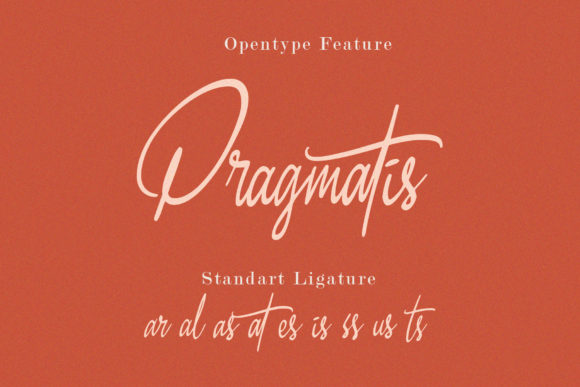
**Introducing Dragmatis: The Script Font That Will Elevate Your Designs to New Heights**
In a world of digital monotony, Dragmatis emerges as a beacon of creativity, an exquisite script font that breathes life into your designs, captivating your audience with its timeless elegance. Each letter, meticulously crafted, dances across the page like a ballerina en pointe, leaving a trail of enchantment in its wake.
With Dragmatis, you hold the key to unlocking a world of endless possibilities. Whether you're a seasoned designer or just starting your artistic journey, this font will elevate your creations, transforming them into masterpieces that resonate with your audience. Its versatility knows no bounds, seamlessly adapting to a symphony of design projects, from wedding invitations that whisper romance to logos that exude sophistication.
**A Symphony of Elegance and Functionality**
Dragmatis is not merely a font; it's an experience. Its delicate strokes evoke a sense of nostalgia, reminiscent of love letters penned in the golden age of romance. The font's inherent charm lends itself perfectly to personal projects, adding a touch of intimacy to greeting cards, thank-you notes, and quotes that carry the weight of your emotions.
Yet, Dragmatis's allure extends beyond the realm of the personal. Businesses too can harness its power to create logos and business cards that leave a lasting impression. Its refined character adds a touch of class and professionalism, subtly conveying your dedication to excellence.
**The Perfect Font for Food Packaging: A Culinary Symphony**
In the world of food packaging, Dragmatis emerges as the maestro, conducting a symphony of flavors and visual appeal. Its graceful curves and delicate flourishes add an air of sophistication to any packaging design, transforming ordinary products into culinary masterpieces.
Imagine the allure of a coffee bag adorned with Dragmatis, its letters dancing across the surface like wisps of steam rising from a freshly brewed cup. Or picture a chocolate box, its lid graced with Dragmatis, inviting customers to indulge in a moment of pure bliss.
**A Font Rooted in Tradition, Soaring into the Future**
Dragmatis is a font that transcends time, drawing inspiration from the past while embracing the future with open arms. Its classic charm evokes a sense of heritage and authenticity, while its contemporary appeal ensures it remains relevant in the ever-evolving digital landscape.
With Dragmatis at your disposal, you have the power to create designs that speak to the hearts of your audience, designs that resonate with emotion and leave an indelible mark on their minds.
So, embark on this creative journey with Dragmatis, and let your designs flourish with an elegance and charm that will captivate the world.